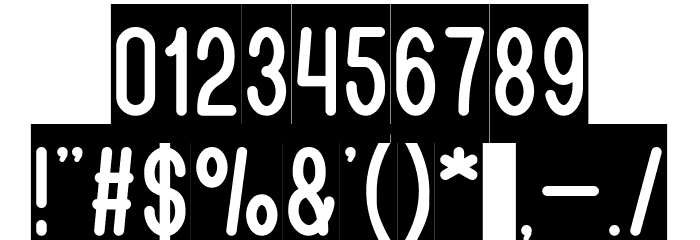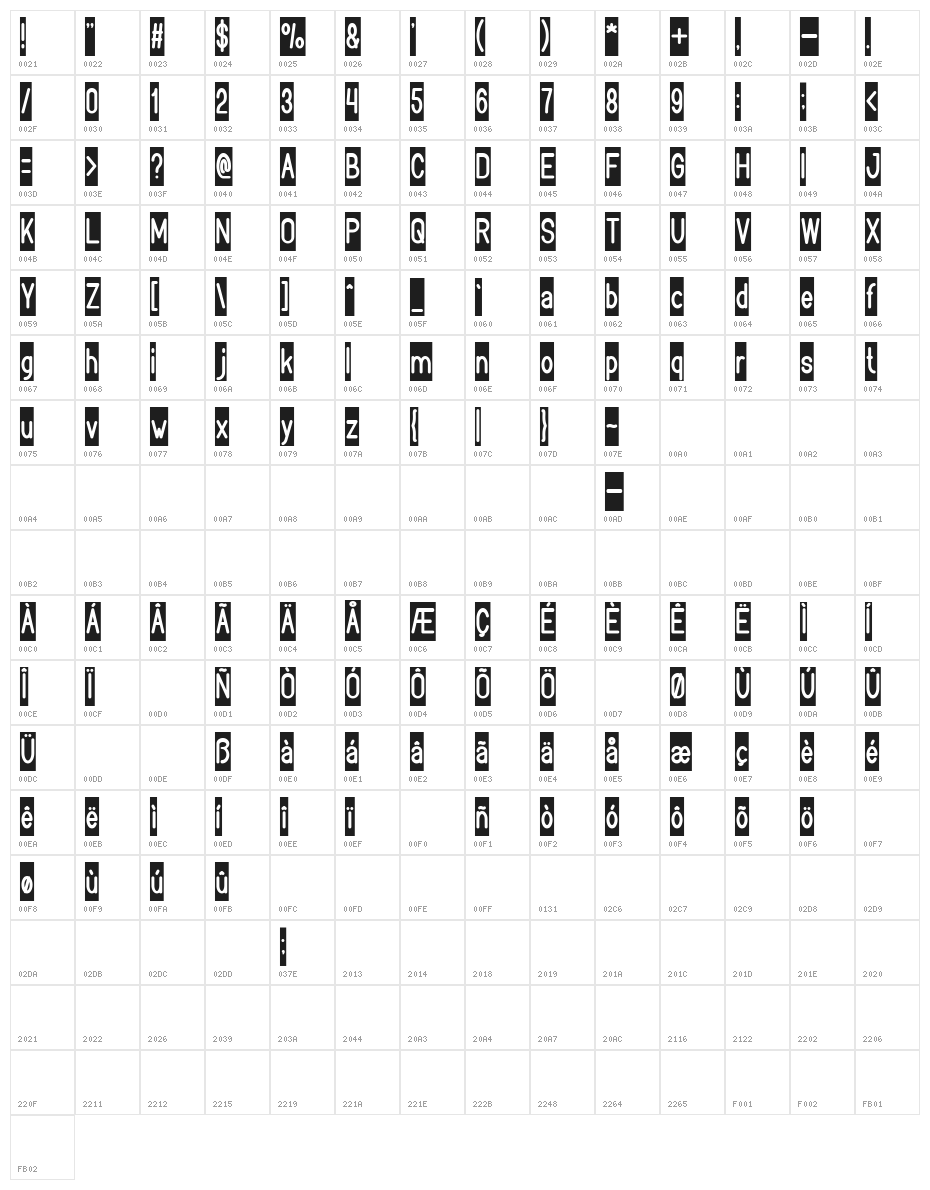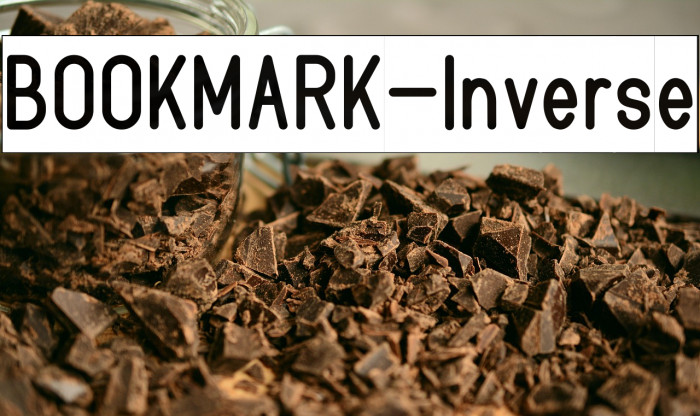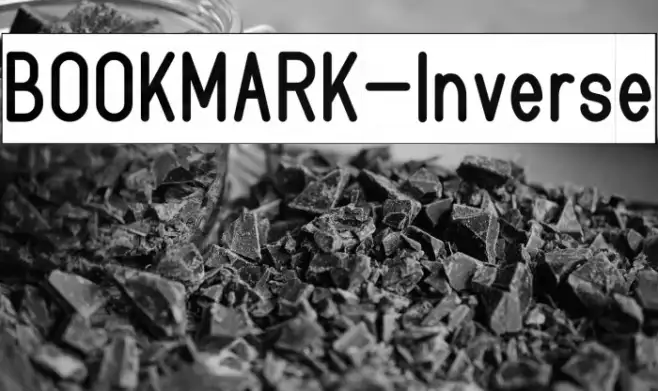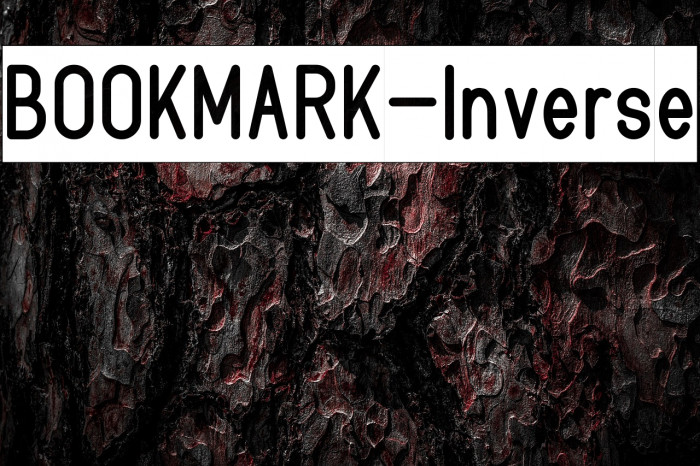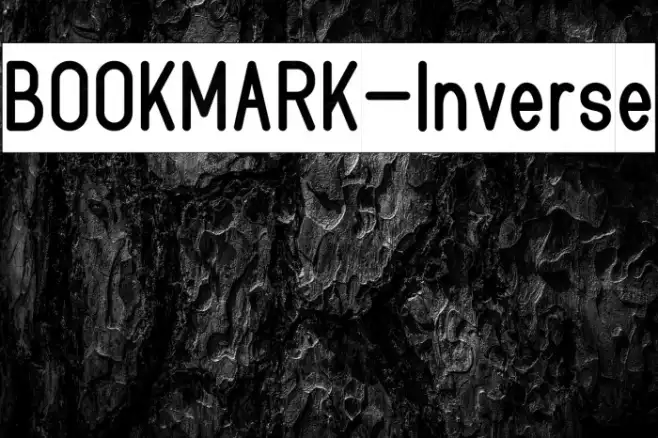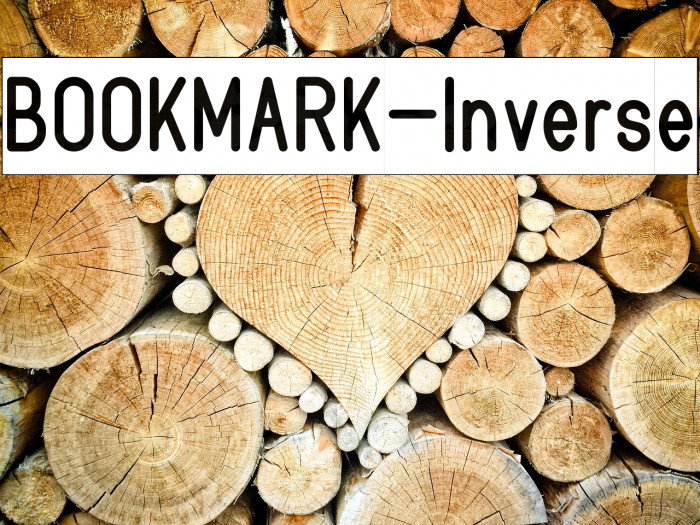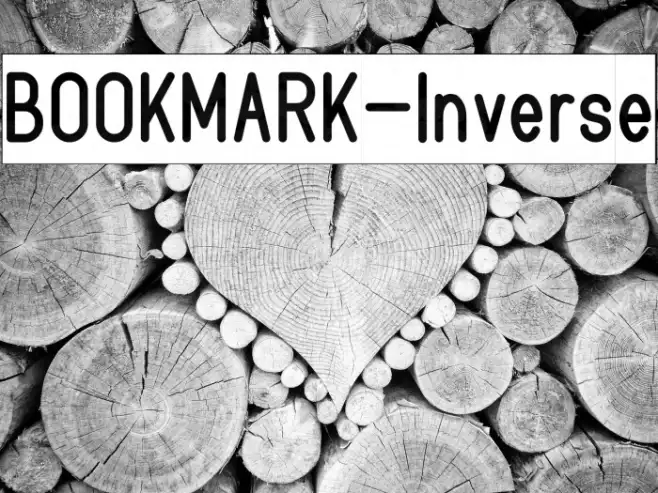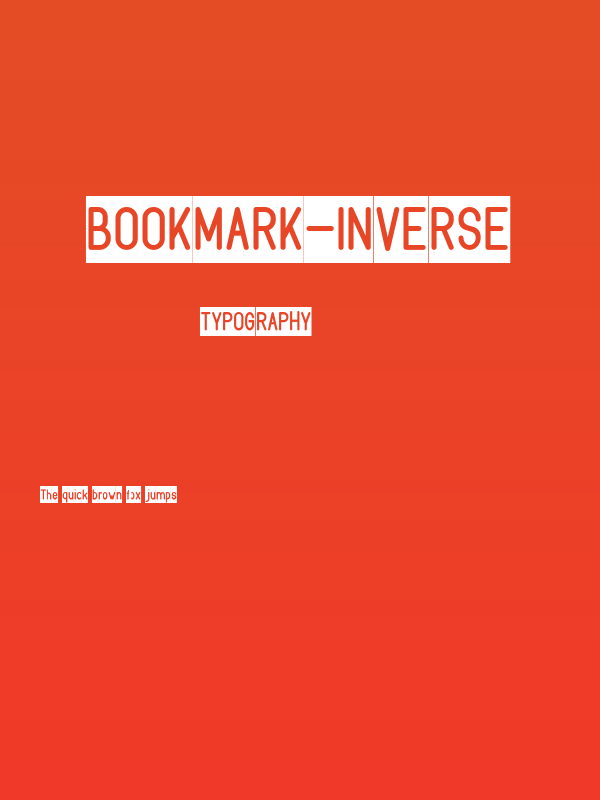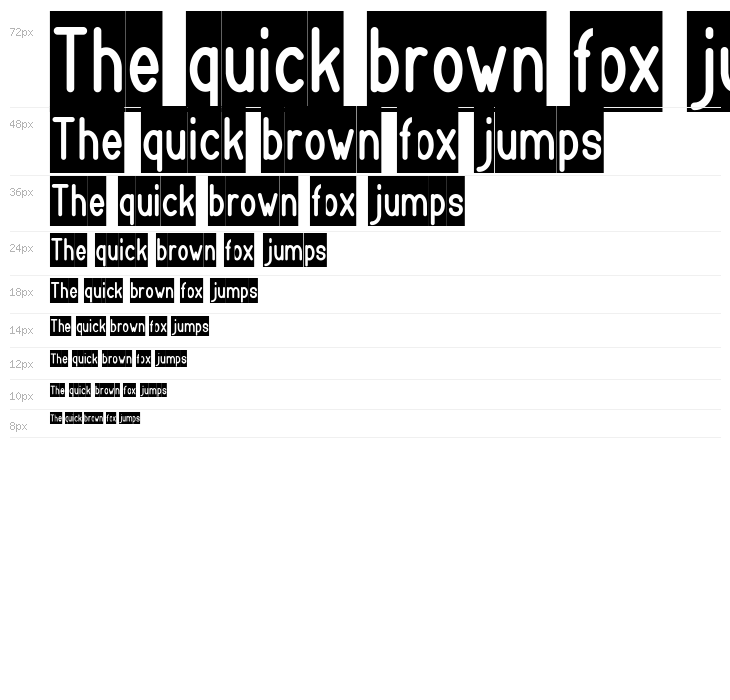
BOOKMARK-Inverse Font
BOOKMARK-Inverse Description
This font features a clean and modern sans-serif style with rounded edges, giving it a friendly and approachable appearance. The characters are evenly spaced, contributing to excellent readability. The uppercase letters are bold and slightly condensed, while the lowercase letters maintain a consistent height, enhancing uniformity. The numerals are clear and distinct, making them suitable for various applications. Special characters are well-defined, ensuring versatility in design projects. Overall, this font balances simplicity with a touch of elegance, making it suitable for a wide range of uses.
| Proposed Projects | Ideal for branding, web design, advertising, and user interfaces. |